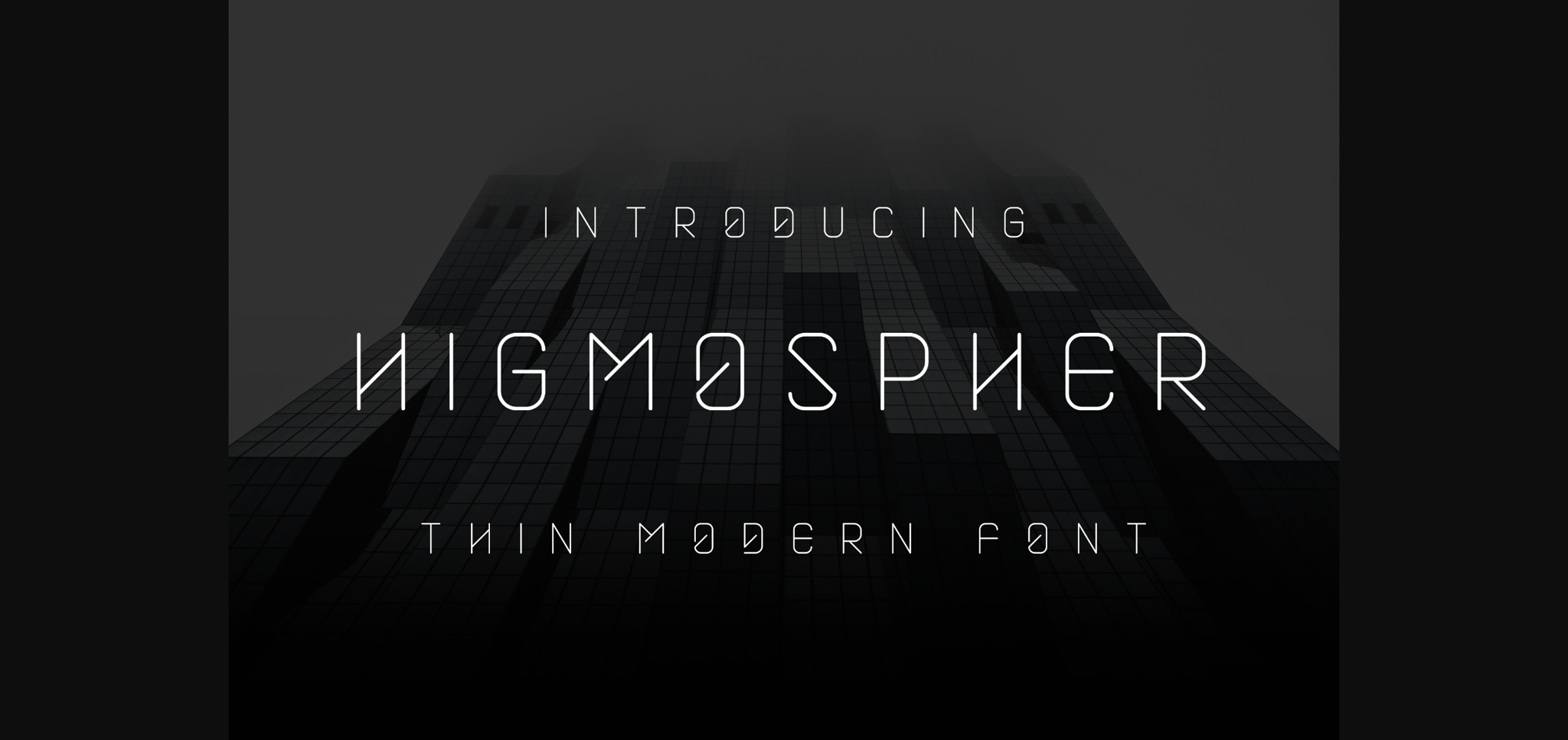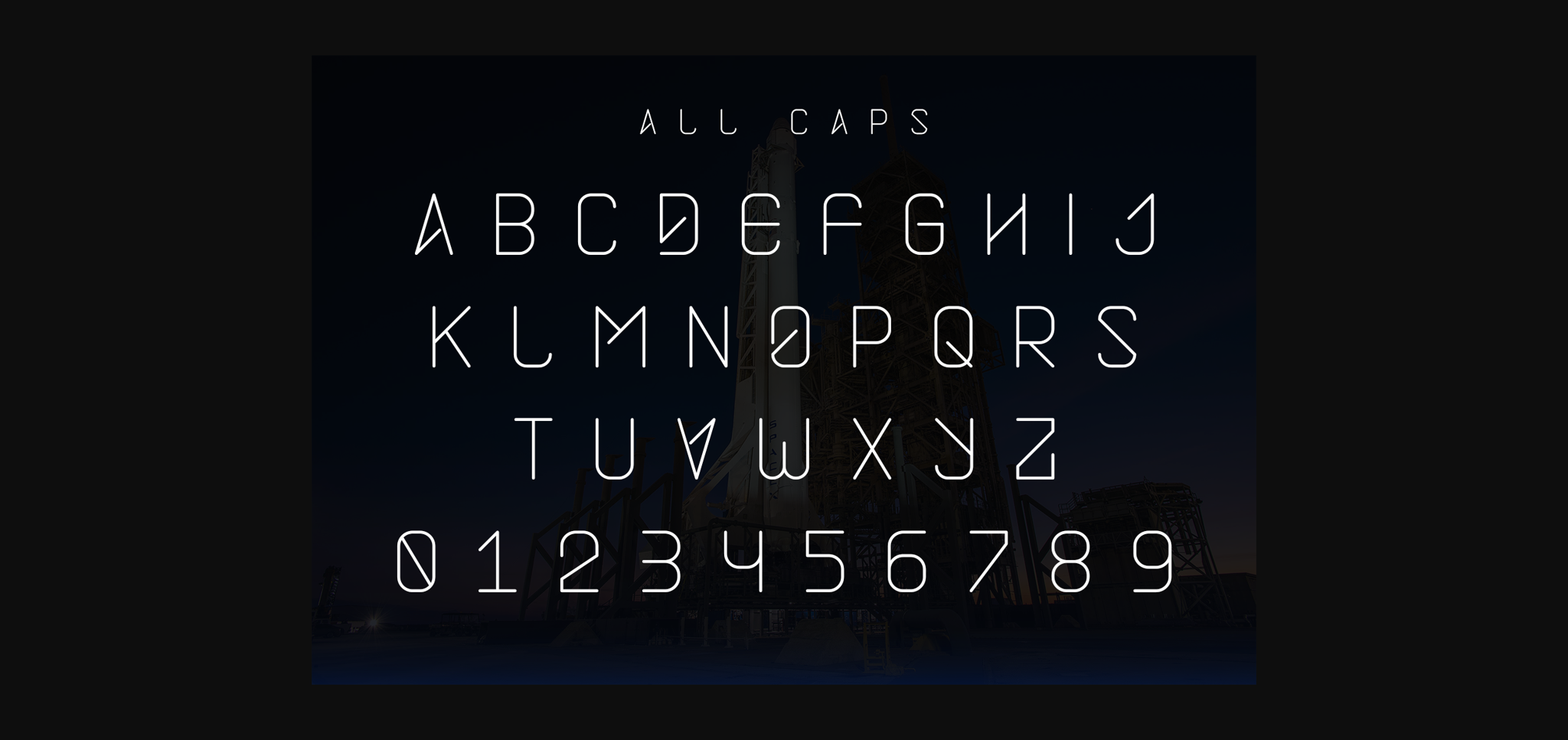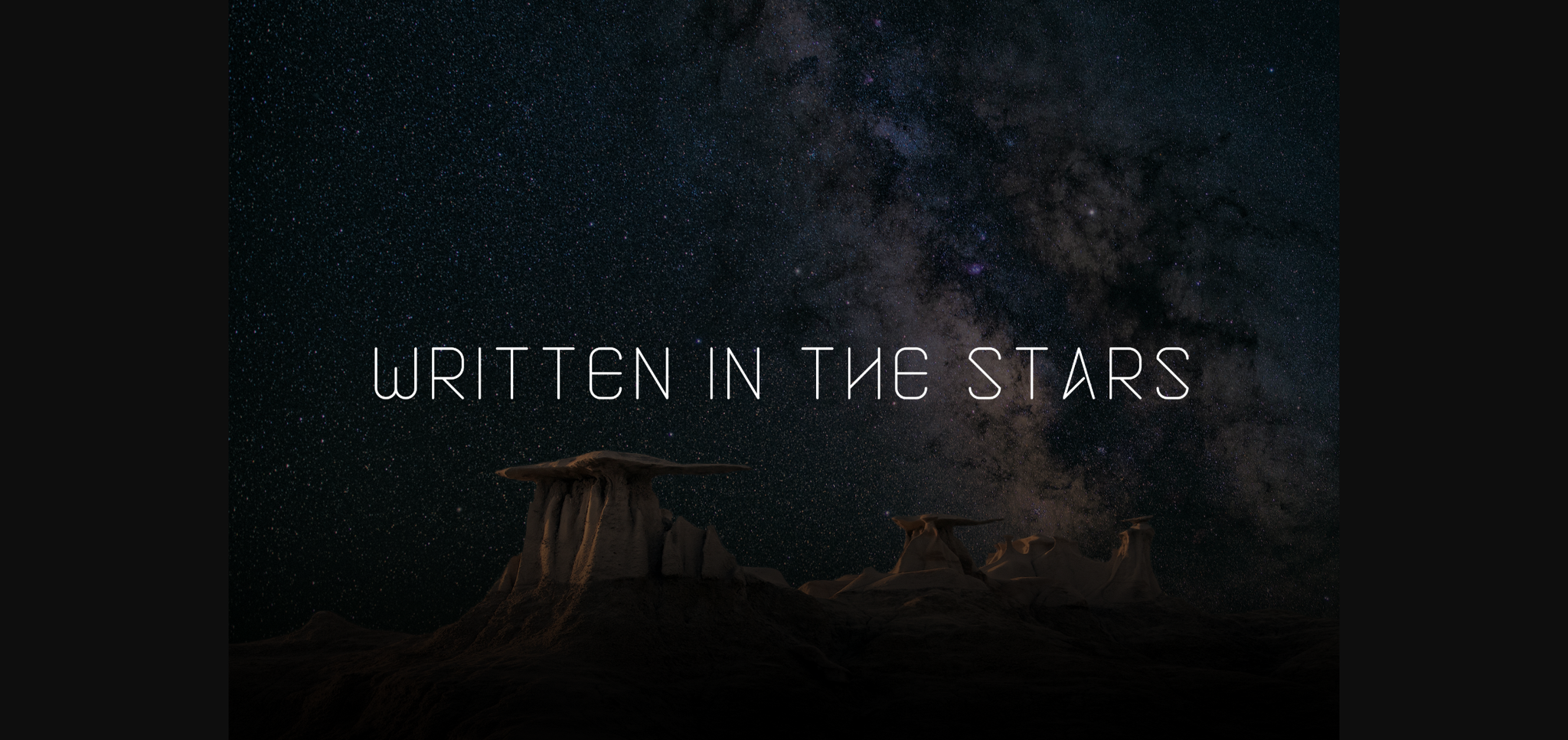
HomeSans Serif FontsHigmospher Font Sans Serif Fonts Higmospher Font FacebookXPinterestWhatsApp 1 of 5 ... Higmospher Font Poster 2... Higmospher Font Poster 3... Higmospher Font Poster 4... Higmospher Font Poster 5... About Higmospher Font Higmospher is a cool and modern sans serif font. No matter the topic, this font will be an incredible asset to your fonts’ library, as it has the potential to elevate any creation. DOWNLOAD NOW People also explored Little Whale Font Binthrots Script Font Terrible Beauty Font Swimming Poll Font Pussycat Tropical Love Font Scientific Graphics Font Peach Blossom Font Smoking Font 305 0 TagsHigmospher Font Previous articleReward FontNext articleMugensu Font LEAVE A REPLY Cancel reply Comment: Please enter your comment! Name:* Please enter your name here Email:* You have entered an incorrect email address! Please enter your email address here Website: Save my name, email, and website in this browser for the next time I comment. Personal Use Free Goodline Font Personal Use Free Read more about this font The Pottery Personal Use Free Read more about this font Doodle Font Personal Use Free Read more about this font Nickainley Personal Use Free Read more about this font BLOG Free Fonts Risk: Why Free Fonts Can Be Dangerous for Designers Free Fonts Risk: Why Free Fonts Can Be Dangerous for Designers Using free fonts is a common practice in web and graphic design. However, the... Elegant Wedding Invitation Fonts – Handwritten & Script Fonts Fonts That Capture the Spirit of New York City How to Install and Use Fonts on Windows, macOS, and Web Projects